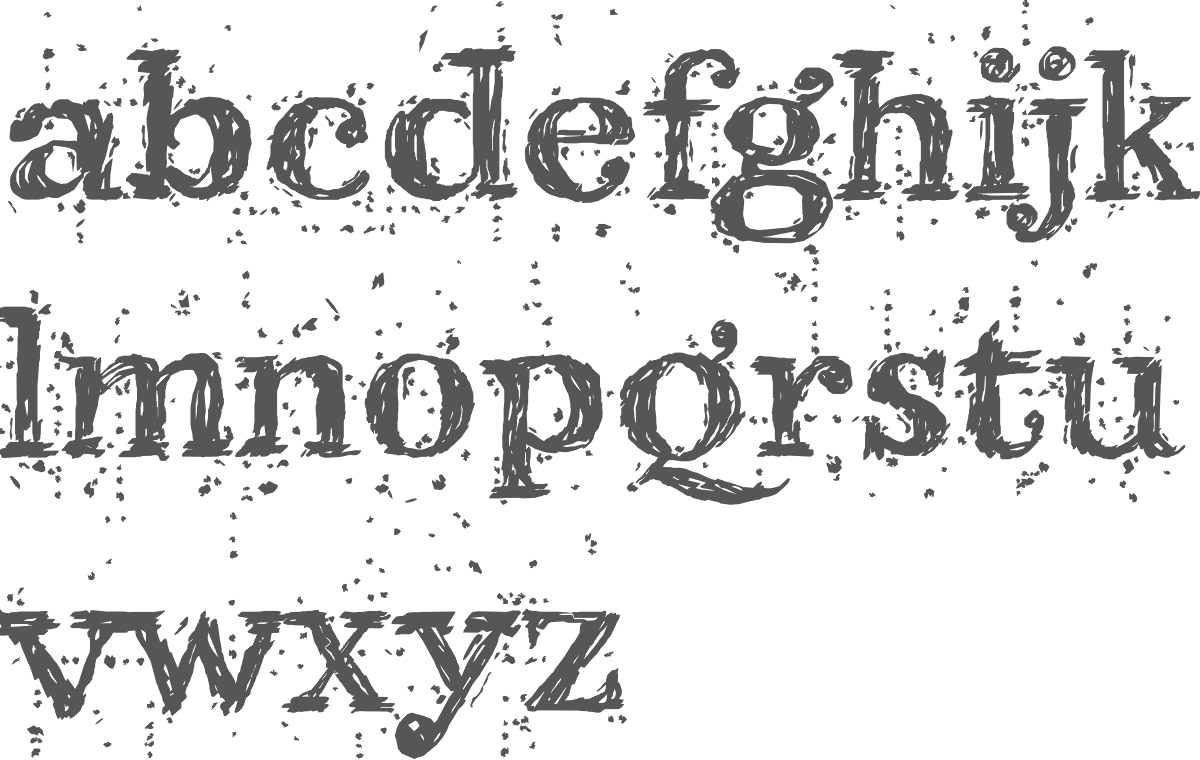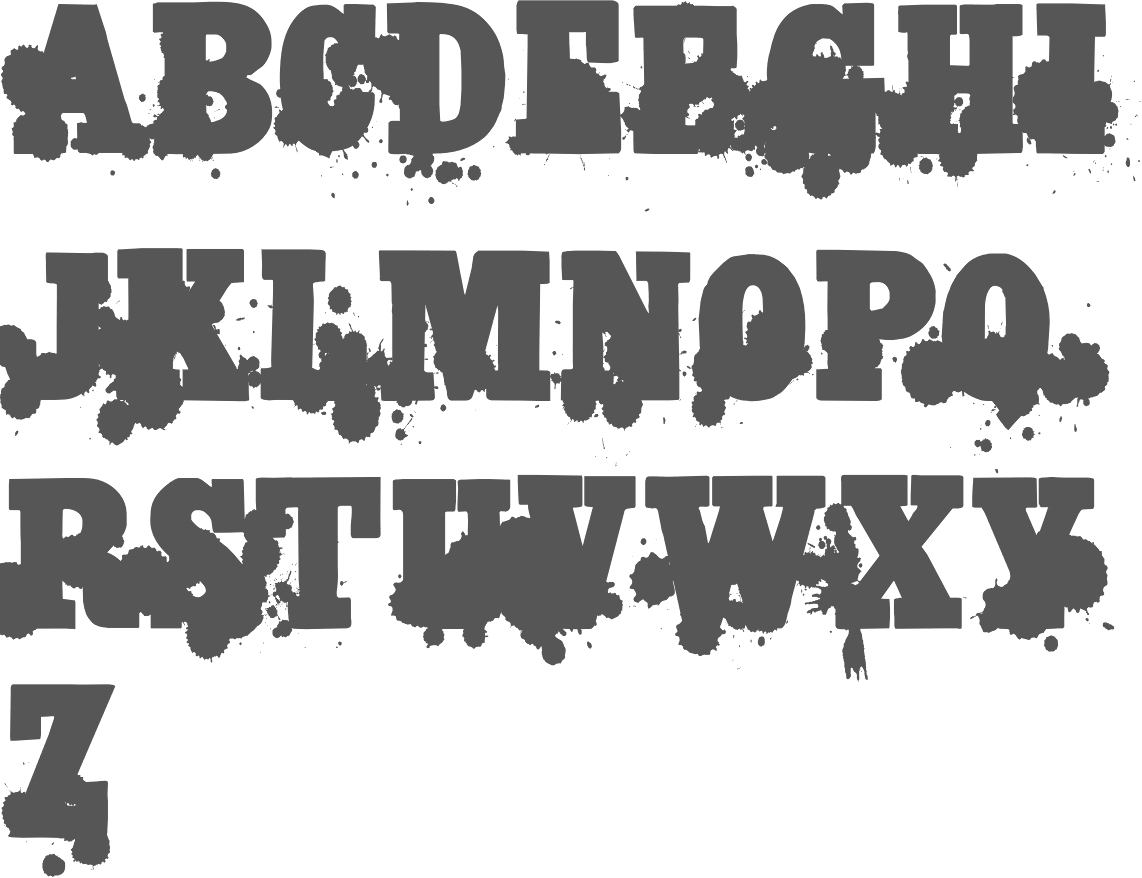
Splatter font font by sarah hurley contains 26 splatter shapes, each assigned to a letter and accessible via glyphs. Search for other dingbats and various fonts. Truetype and opentype fonts available.